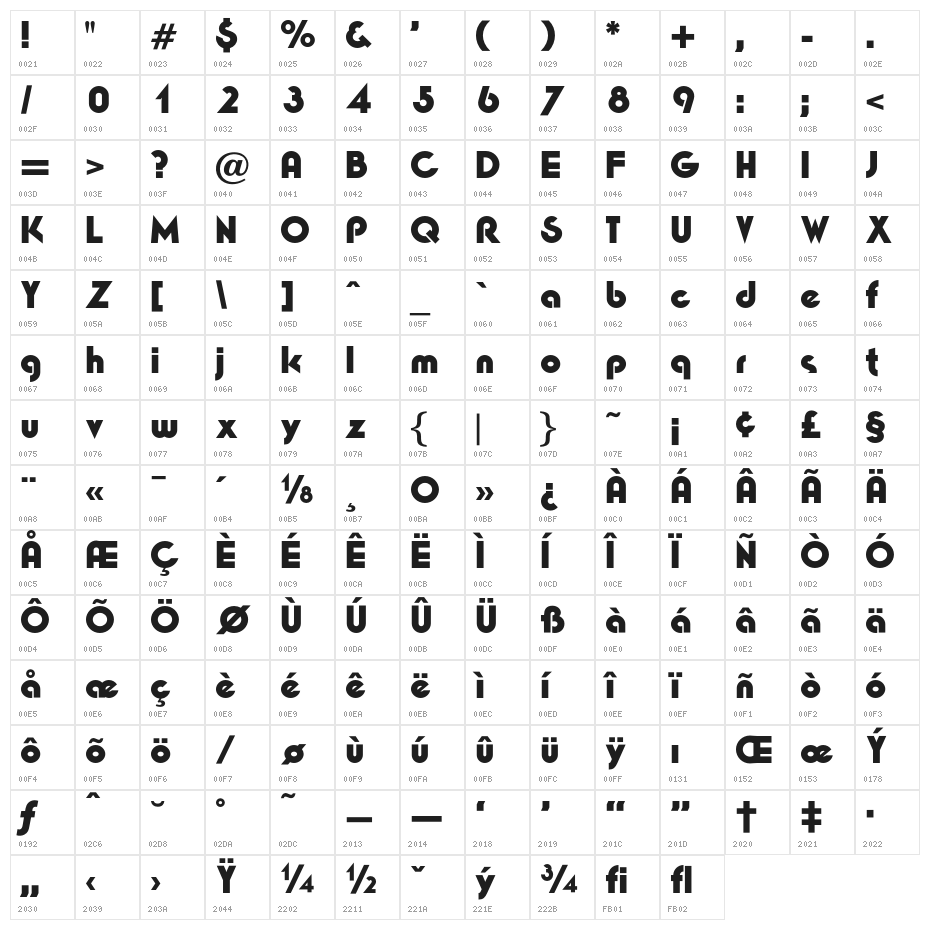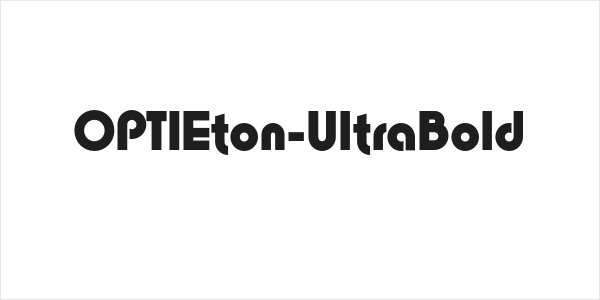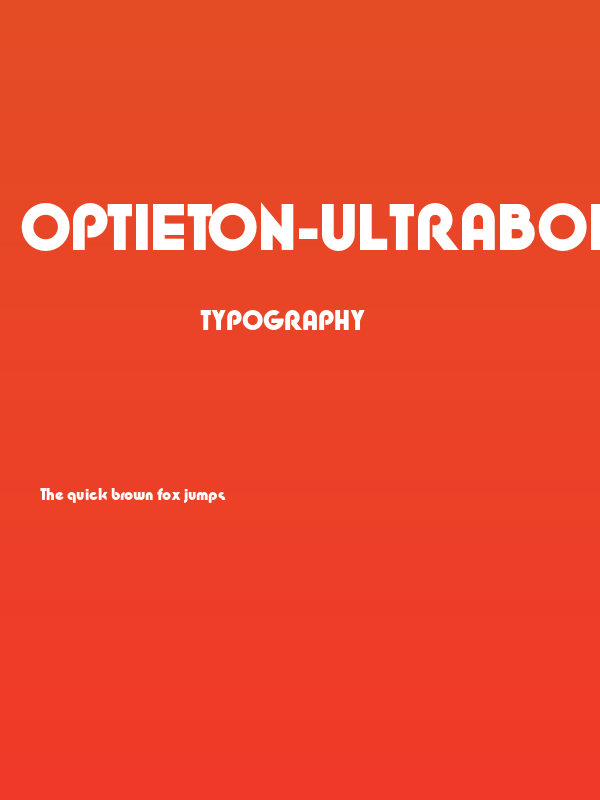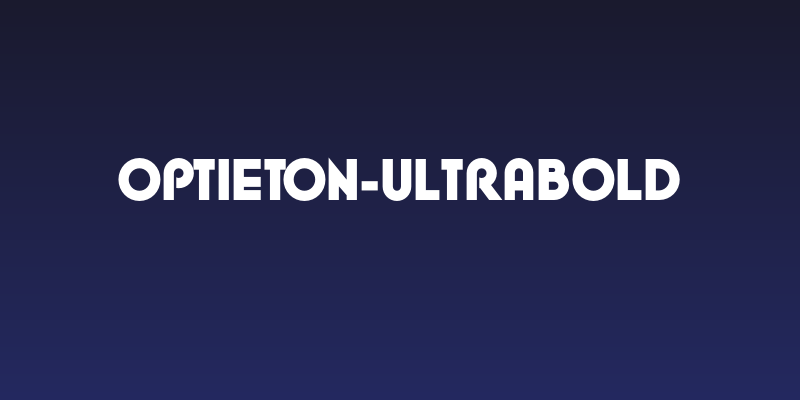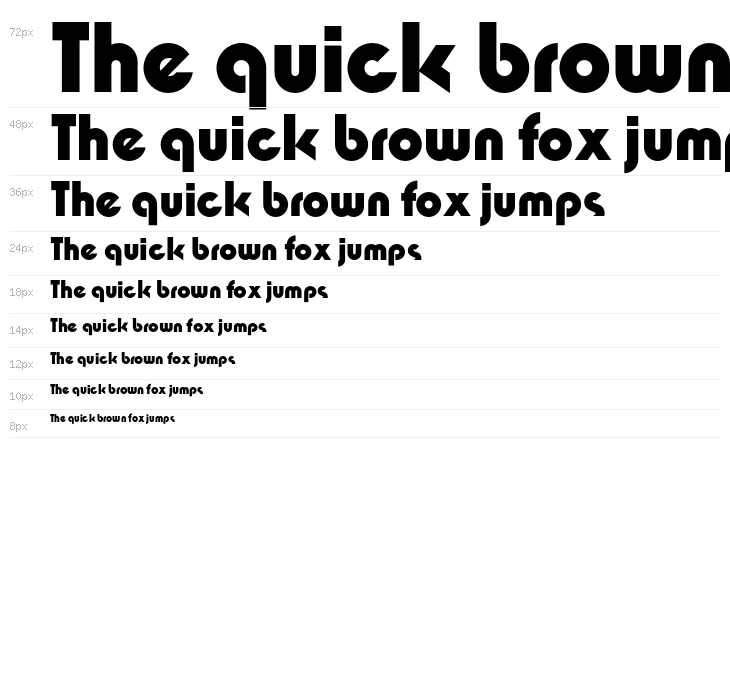
OPTIEton-UltraBold Font
OPTIEton-UltraBold Description
This typeface is characterized by its bold, geometric shapes and strong presence. The uppercase letters are blocky and robust, with a uniform stroke width that conveys a sense of stability and strength. The lowercase letters maintain this boldness while introducing slightly rounded edges, adding a touch of softness to the overall design. The numerals are consistent with the bold style, ensuring readability and impact. Special characters are designed with the same geometric precision, making them stand out. This font is ideal for creating eye-catching headlines and logos due to its commanding appearance.
| Proposed Projects | Ideal for branding, poster design, and any project requiring a strong visual impact. |